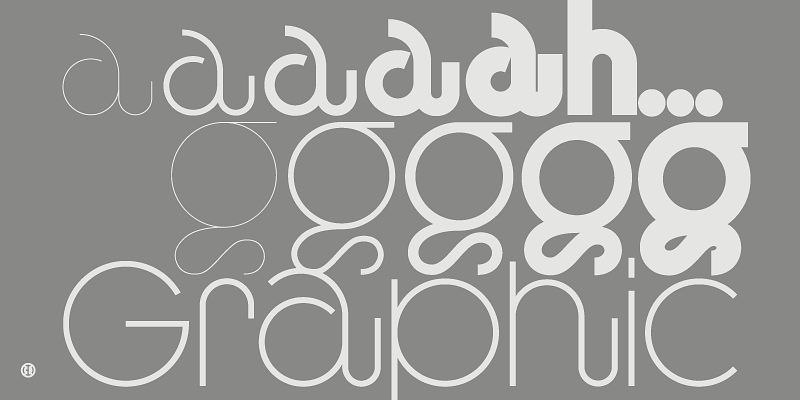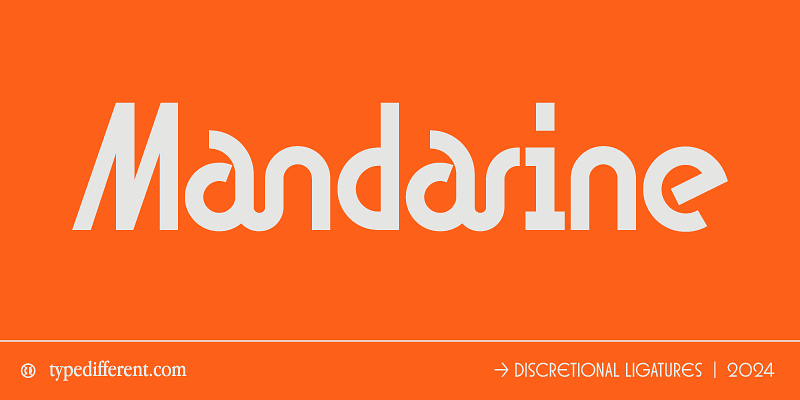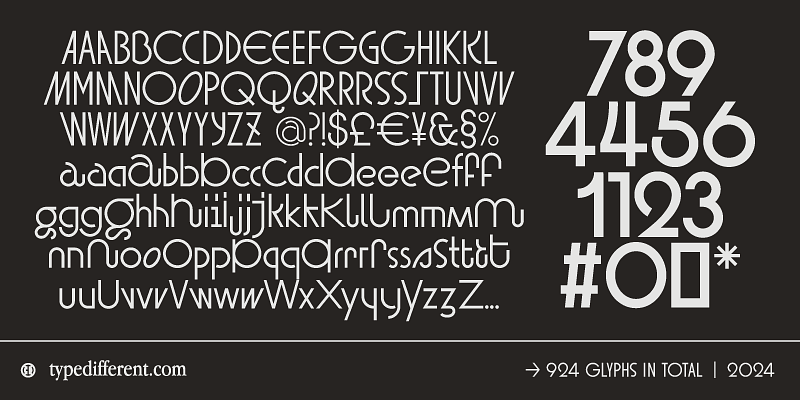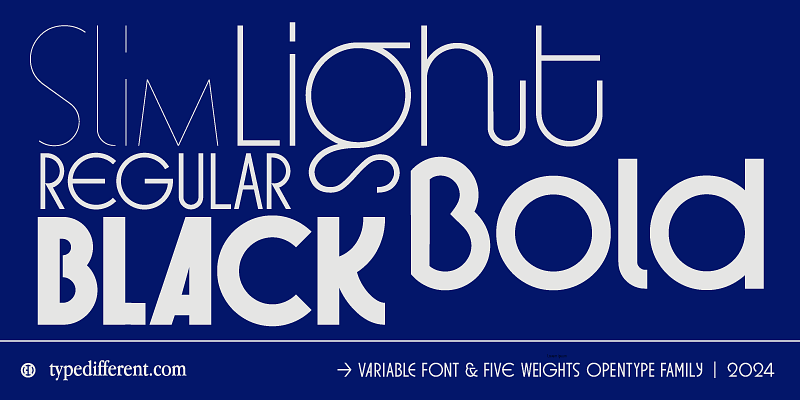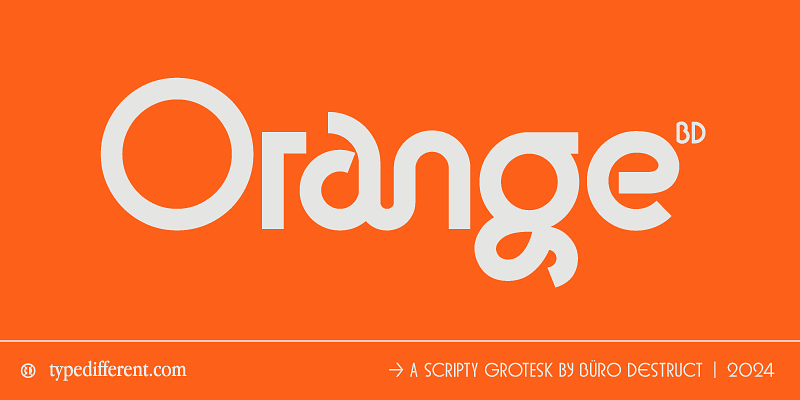
Buro Destruct
Swiss Graphic Design Studio «Büro Destruct» was founded 1994 in Bern by «HGB Fideljus» Berger & Lorenz «Lopetz» Gianfreda. In 1995, Marc «MB» Brunner & Heinz «H1» Reber joined the current group formation. Over the next few years Büro Destruct grew into an internationally acclaimed multidisciplinary design studio. Since 1995, Büro Destruct is releasing its fonts on their type foundry called «Typedifferent.com». As the name «Typedifferent» implies - the Büro Destruct fonts are mainly display typefaces with unique lettering characteristics. They appear on numerous record sleeves, in magazines, movie and TV titles, on fashion-prints and websites.